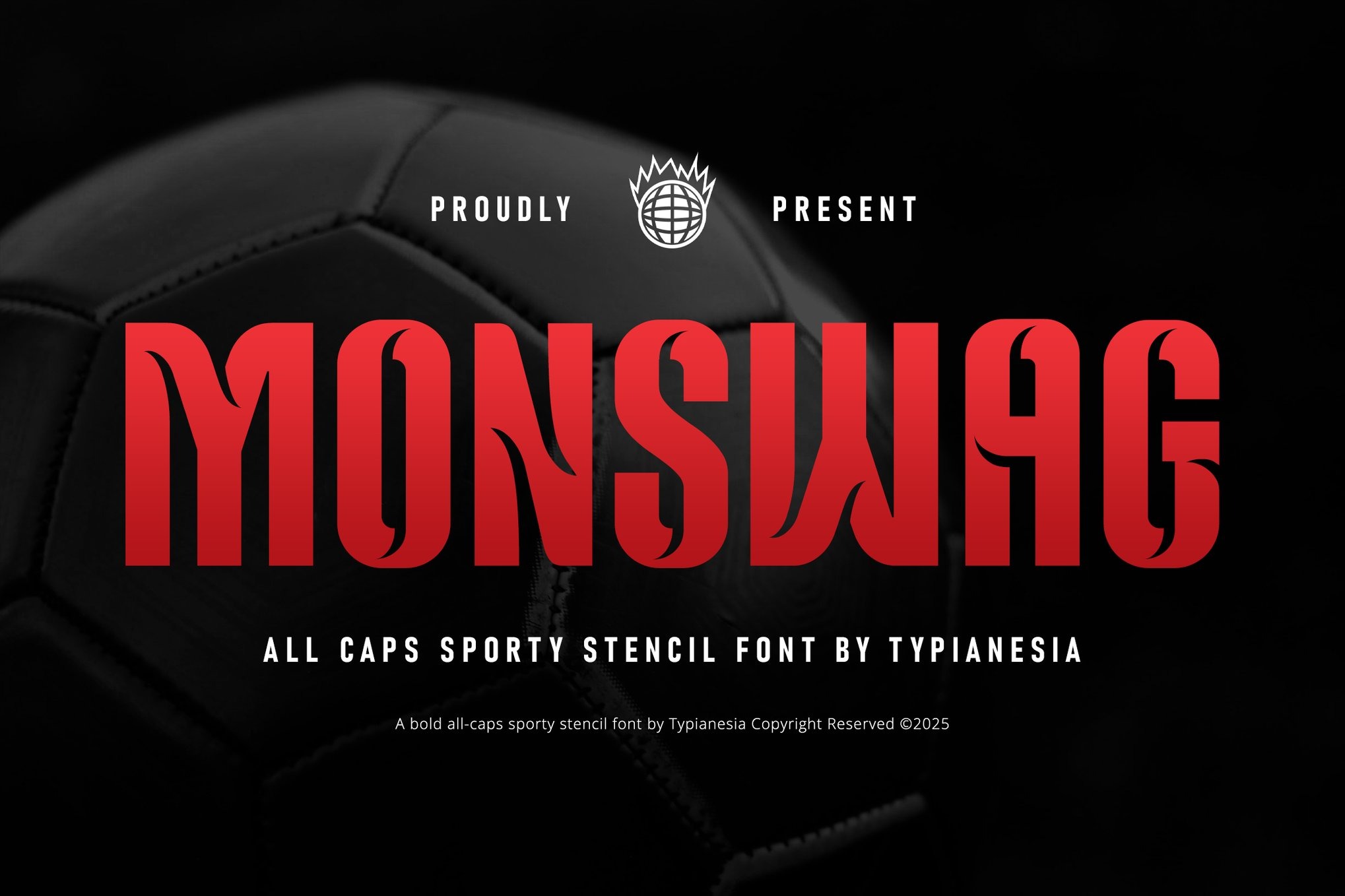
Monswag Font
Monswag Font is Modern Condensed Sport Game Font built for speed, energy, and high impact. This typeface is exceptionally bold and tall, featuring a tight condensed structure and unique stencil-cut detailing that makes it perfect for commanding headlines and limited display space. It’s an ideal choice for sporty branding, and high-octane graphics for games, tech, web, urban, logos and any projects that require a touch of Modern, fire and fantasy, Monswag delivers a contemporary, authoritative look that will make your design stand out.